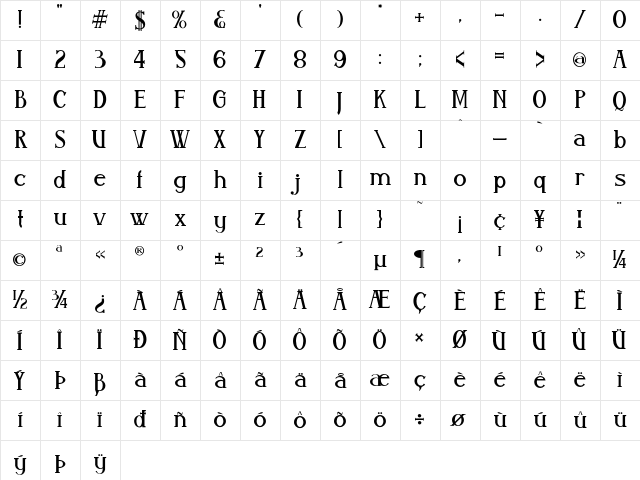
Aleijadinho Regular Free Font
Aleijadinho Regular
Design Context for Aleijadinho
Aleijadinho is a composed and adaptable typeface that performs quietly and consistently across a wide range of design contexts.